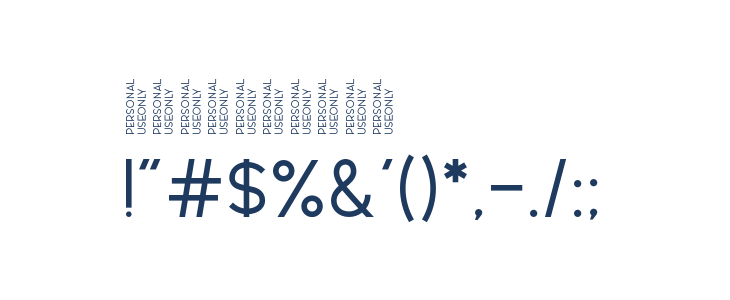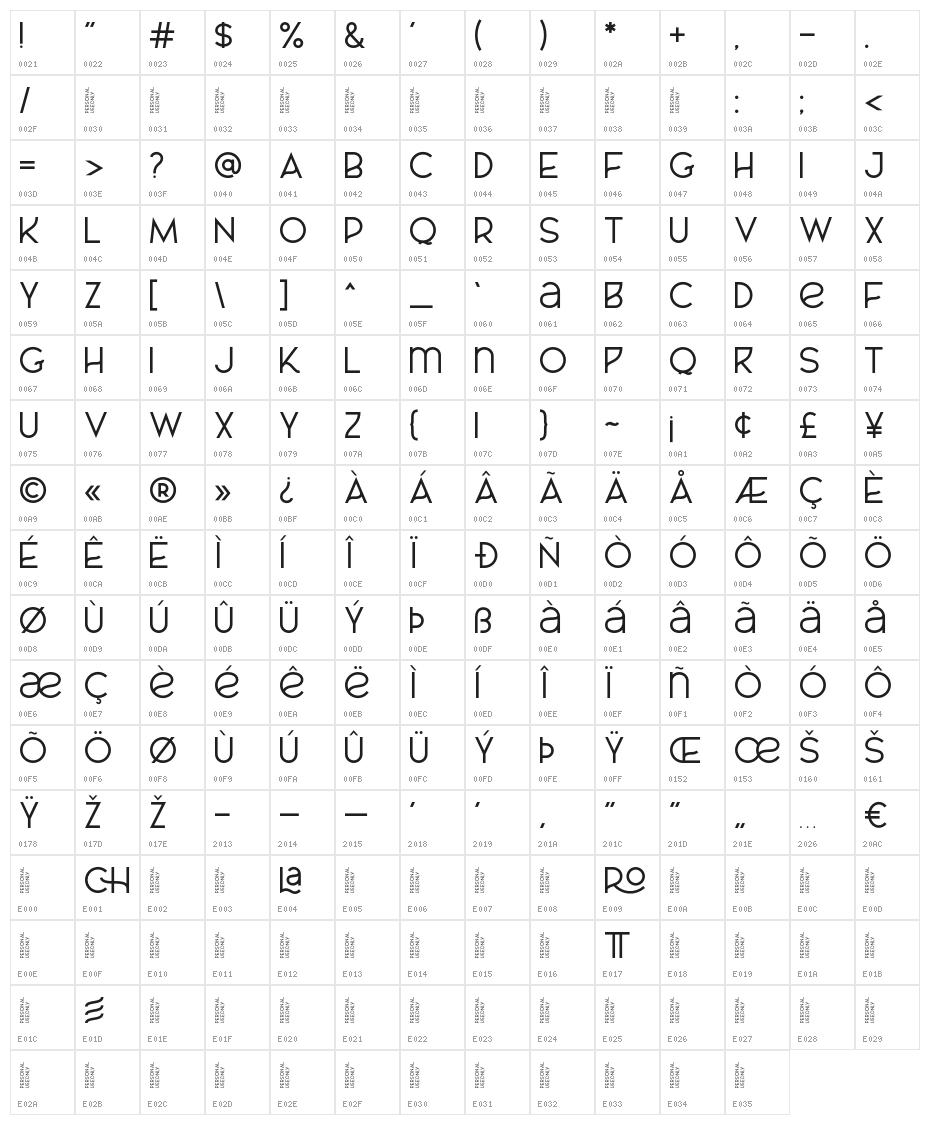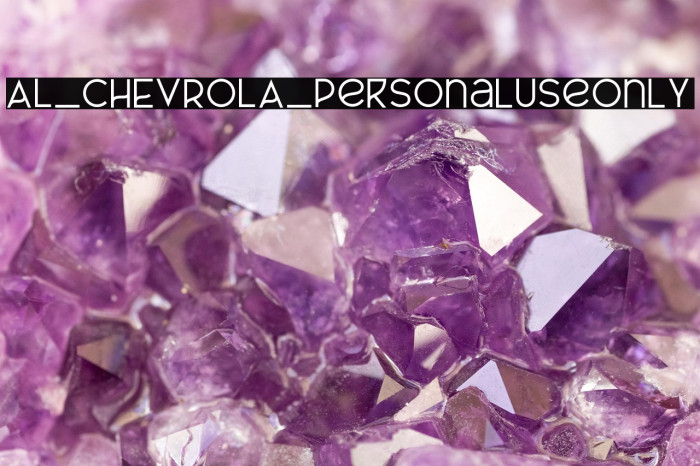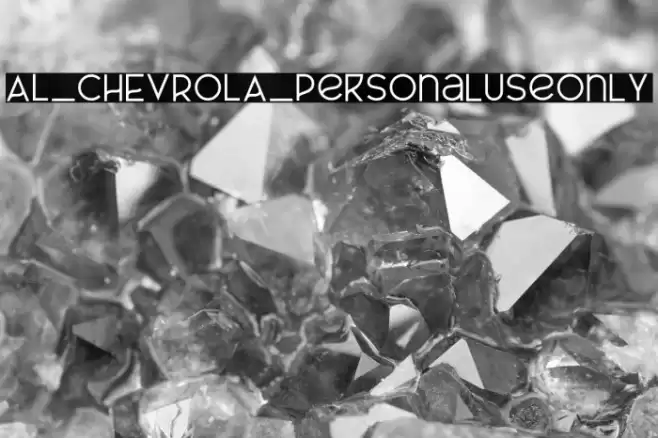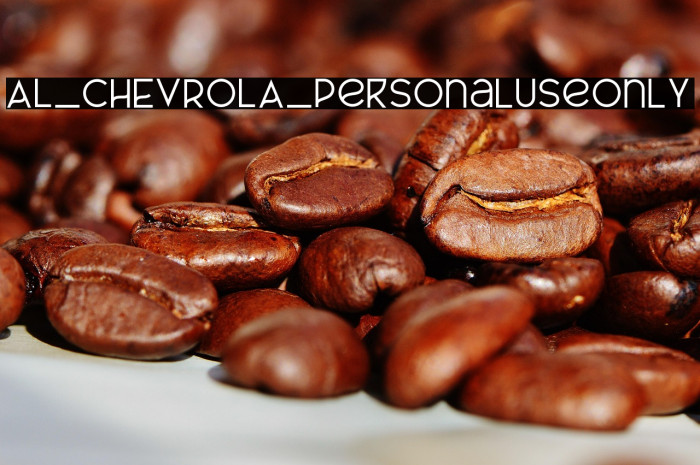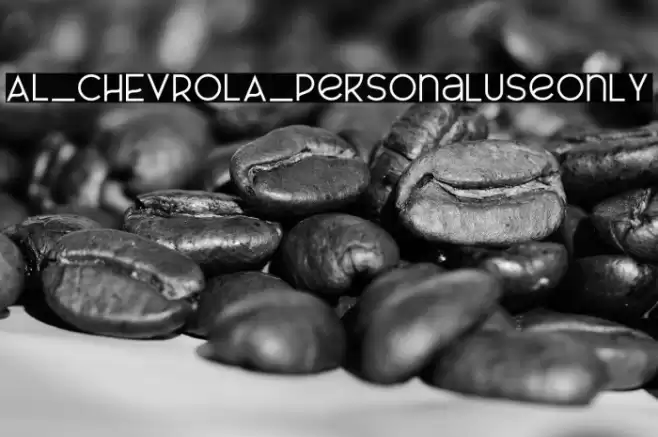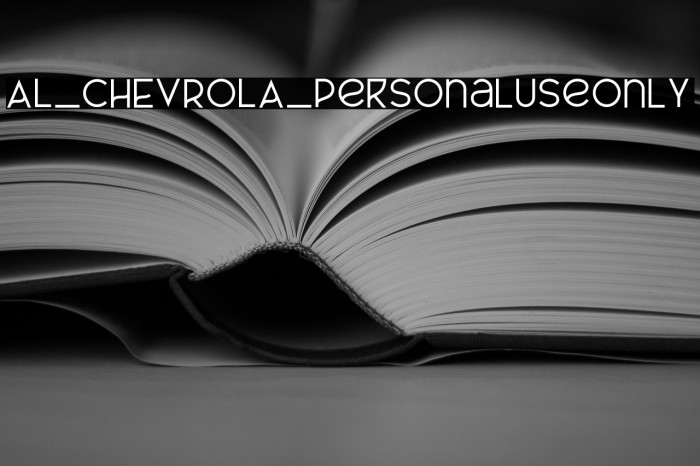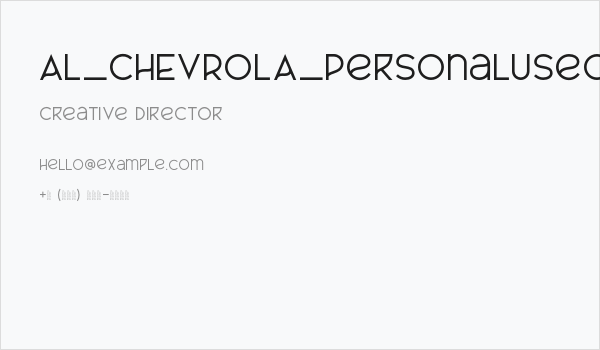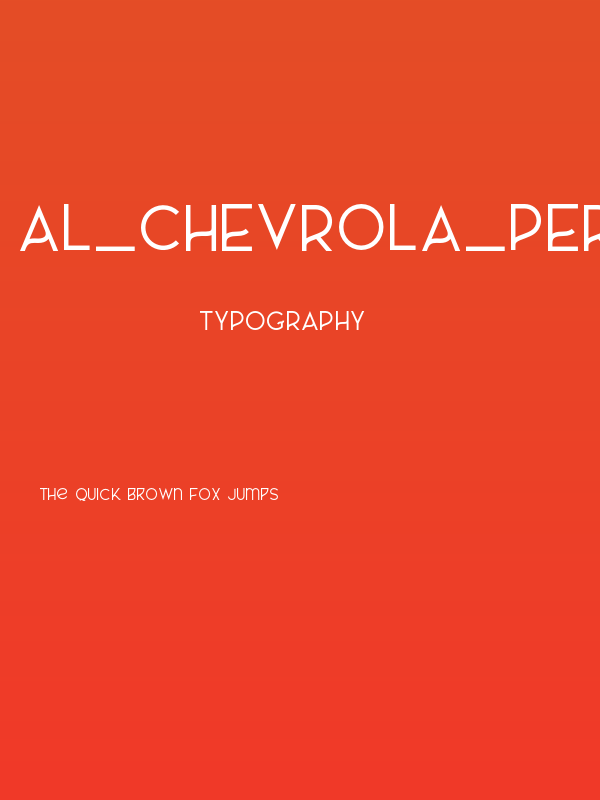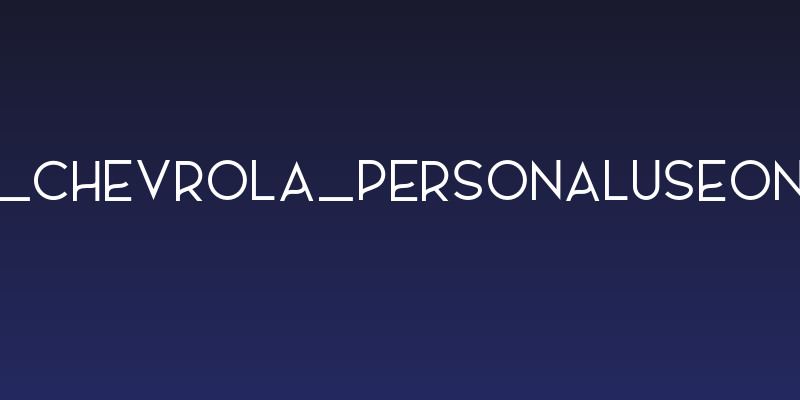
AL_CHEVROLA_PersonalUseOnly Font
AL_CHEVROLA_PersonalUseOnly Description
This font features a modern and geometric design with clean lines and sharp angles. The uppercase letters are distinct with a futuristic flair, while the lowercase letters maintain a consistent style that complements the uppercase. The numerals are clear and legible, matching the overall aesthetic of the alphabet. Special characters are included, maintaining the same geometric style. This font is suitable for projects that require a contemporary and sleek appearance.